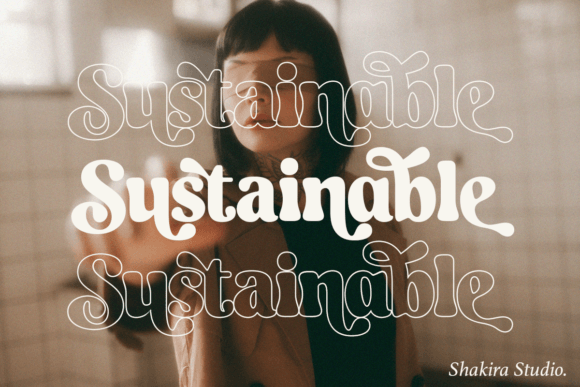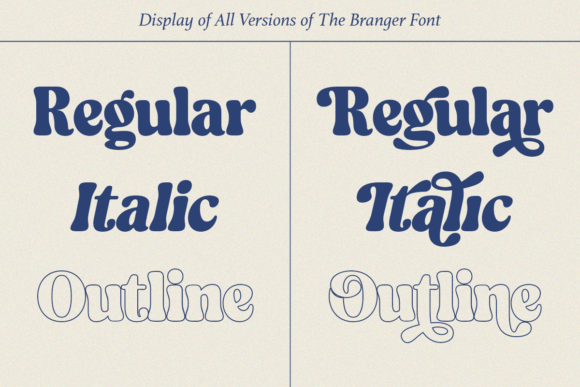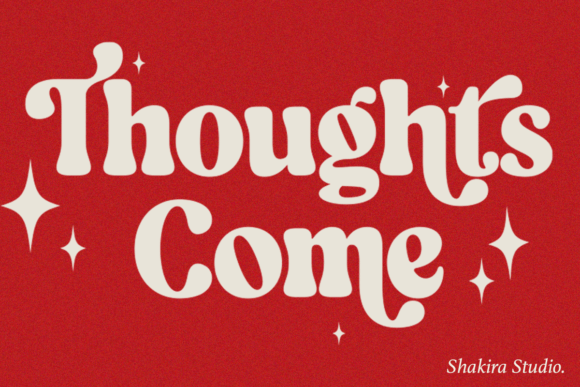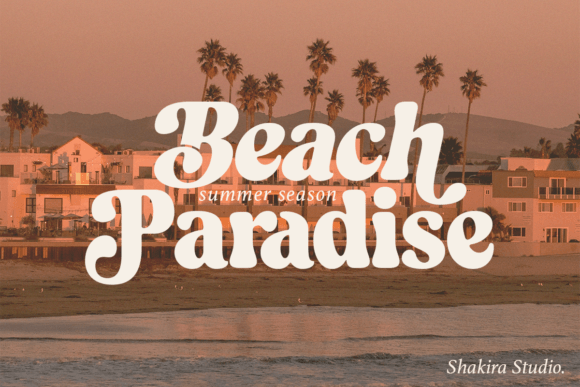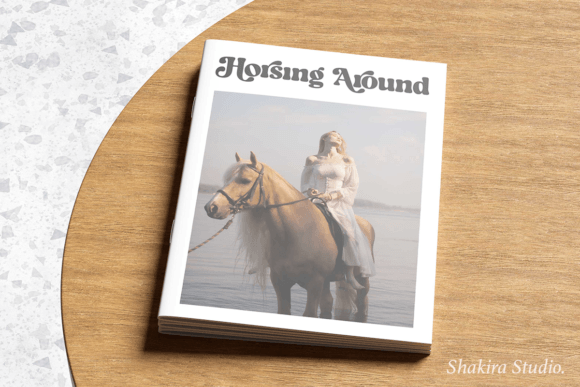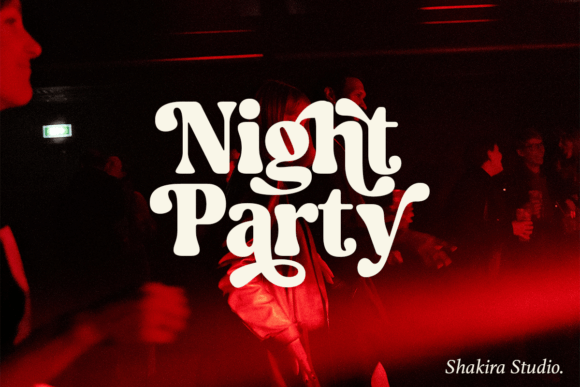
Introducing Branger Font: A Bold Statement in Serif Typography
In the world of typography, fonts play a crucial role in conveying messages, evoking emotions, and setting the tone for a brand or design. For designers and crafters seeking to make a bold statement, Branger Font is an exciting addition to the serif font family. With its bold retro serif characters and three stylish variations – regular, italic, and outline – Branger embodies the essence of serif fonts and typography trends.
The Evolution of Serif Fonts
Serif fonts have been a staple in typography for centuries, with their origins dating back to ancient Greece and Rome. These fonts are characterized by small lines or flourishes at the ends of letters, which enhance readability and add a touch of sophistication. Over the years, serif fonts have evolved to incorporate various styles, from classic and traditional to modern and bold.
What Makes Branger Font Stand Out
Branger Font is a versatile toolkit that offers a unique blend of retro charm and modern flair. Its bold retro serif characters are designed to grab attention, making it perfect for headlines, titles, and emphasis text. The font’s three stylish variations – regular, italic, and outline – provide designers with a range of creative options to suit their design needs.
Regular: The Classic Look
The regular version of Branger Font features bold, confident characters with a classic serif design. This style is ideal for body text, articles, and other written content where readability is paramount.
Italic: Adding a Touch of Elegance
The italic version of Branger Font adds a touch of elegance and sophistication to any design. With its slanted characters and refined lines, this style is perfect for emphasizing text, creating contrast, and adding visual interest.
Outline: A Modern Twist
The outline version of Branger Font offers a modern twist on traditional serif design. With its hollow characters and bold lines, this style is ideal for creating striking headlines, titles, and emphasis text that demands attention.
Typography Trends and Branger Font
Branger Font is perfectly positioned to capitalize on current typography trends, which emphasize bold, expressive, and versatile fonts. The font’s retro charm and modern flair make it an excellent choice for designers seeking to create unique and eye-catching designs.
Design Applications for Branger Font
Branger Font is an incredibly versatile font that can be used in a wide range of design applications, including:
• Branding and logos: Create bold, memorable logos that make a statement.
• Headlines and titles: Add emphasis and visual interest to headlines and titles.
• Packaging design: Create eye-catching packaging that stands out on store shelves.
• Advertising: Craft compelling ads that grab attention and drive engagement.
• Digital media: Use Branger Font to create engaging social media graphics, blog posts, and website content.
Branger Font is a bold and versatile serif font that offers designers a unique toolkit for creating striking designs. With its bold retro serif characters and three stylish variations – regular, italic, and outline – Branger embodies the essence of serif fonts and typography trends. Whether you’re a designer, crafter, or simply someone who appreciates great typography, Branger Font is an excellent addition to your font library.
Get Ready to Make a Bold Statement with Branger Font